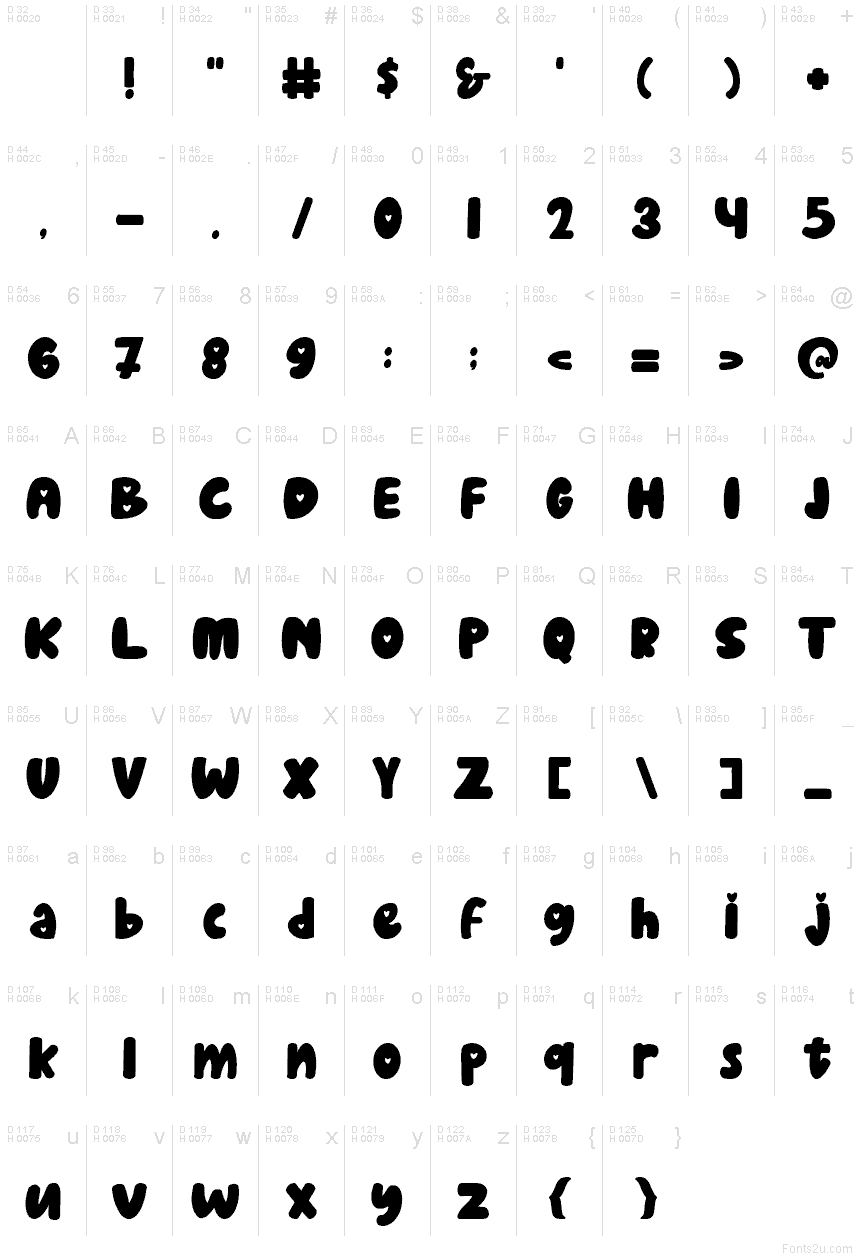
Love Mayjen Regular
Love Mayjen font by Wildan Type is a bold cartoon display showcasing a lovable, soft, and playful design. Its whimsical handwritten appearance makes it simple yet approachable for contemporary use. It includes heart accents and round edges that add more character to each letter.
Standard projects such as branding, logos, packaging or cover titles can all greatly benefit from Love Majen typeface overall artwork. More creative presentations are possible which include the likes of greeting cards for kids and adults, and designs for children’s educational toys or books.